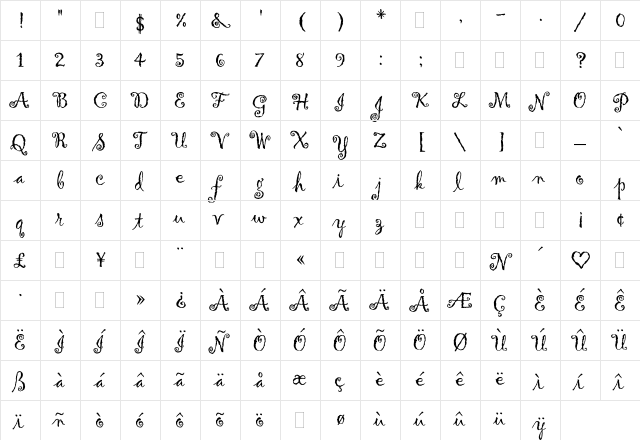
Gigi Plain
Design Context for Gigi Typeface
Gigi is a composed and adaptable typeface that performs quietly and consistently across a wide range of design contexts.